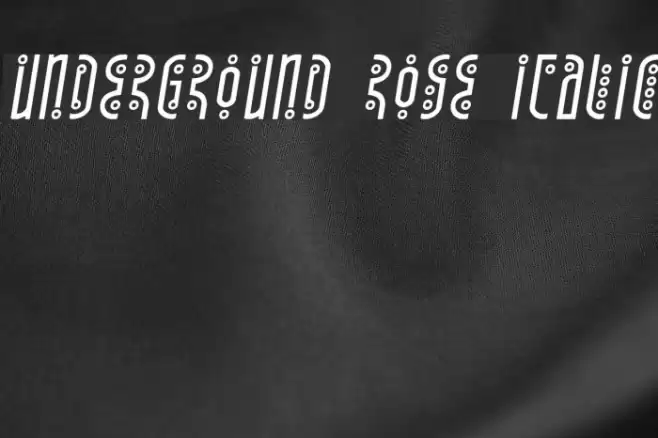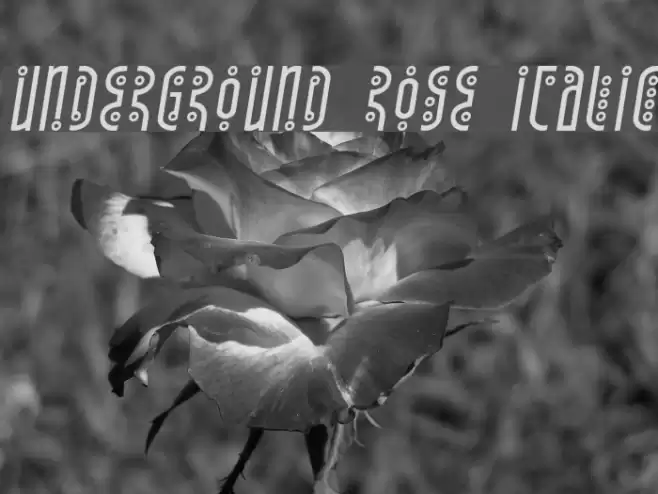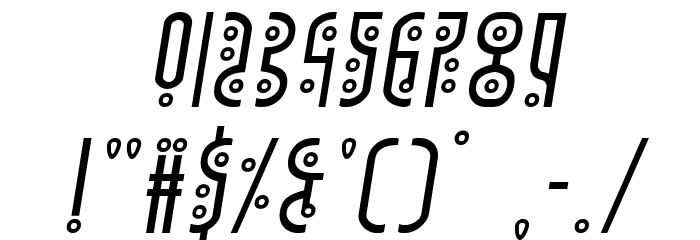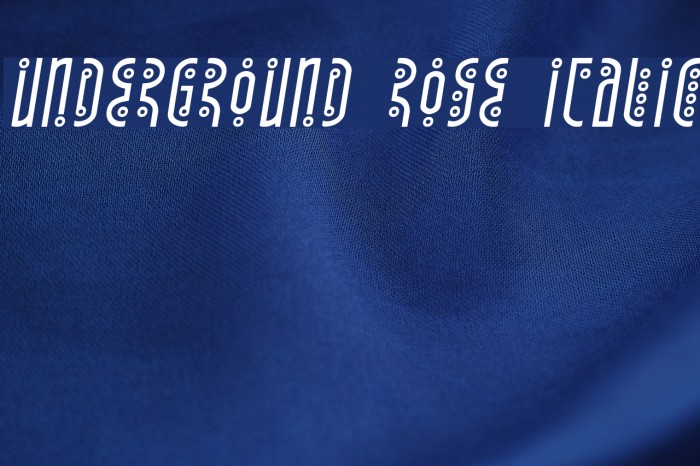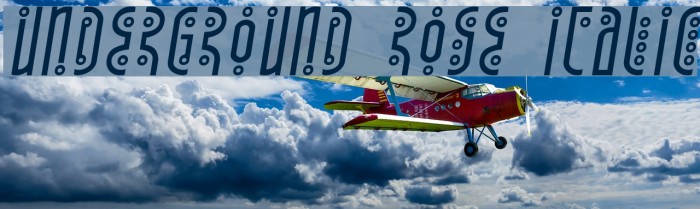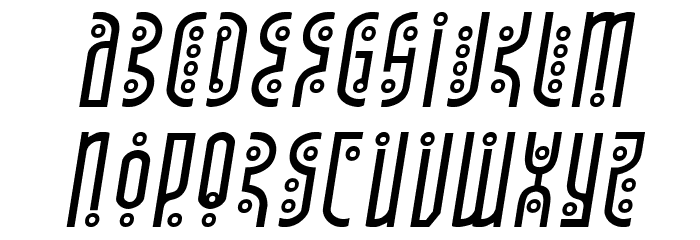
Underground Rose Italic Font
Underground Rose Italic Description
This font features a unique and decorative style with a modern twist. Each character is adorned with circular embellishments, giving it a distinct and playful appearance. The letters are slightly italicized, adding a dynamic flow to the text. The design is bold and eye-catching, making it suitable for creative and artistic projects. The numbers and special characters maintain the same decorative elements, ensuring consistency throughout the font. The overall aesthetic is both futuristic and retro, making it versatile for various design needs.
A decorative, italicized font with circular embellishments and a modern flair from Uncategorized fonts.
- Proposed Projects: Ideal for posters, album covers, branding, and any project requiring a bold, artistic touch.
- Overall Style: Modern, Decorative